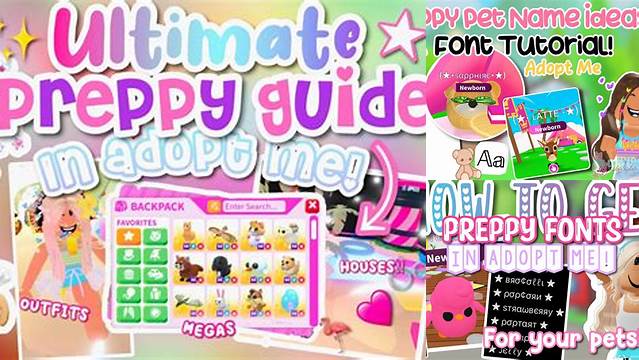
Preppy Roblox Adopt Me Fonts: The Ultimate Guide
Hey guys! Ever wondered how to make your Roblox Adopt Me creations pop with that super cute, preppy vibe? Well, a huge part of that is choosing the right fonts! Fonts can totally transform the look and feel of your signs, descriptions, and even your in-game messages. Let's dive into the world of preppy Roblox Adopt Me fonts and discover how to make your game stand out!
1. Understanding the Preppy Aesthetic
Before we jump into the fonts themselves, let's quickly break down what we mean by "preppy." Think classic, clean, and polished. Preppy style often incorporates bright colors, neat typography, and a sense of playful sophistication. When applied to Roblox Adopt Me, this aesthetic can create a welcoming and visually appealing environment that attracts players who love a bit of charm and elegance. To truly capture the preppy aesthetic, consider fonts that are easy to read, have a friendly vibe, and aren't overly complicated. Imagine fonts you might see in a high-end boutique or a charming little café. These are the types of fonts that will help you nail that preppy look in your Adopt Me world.
The preppy aesthetic is all about timeless style and understated elegance. It draws inspiration from classic Americana, Ivy League fashion, and a touch of nautical flair. In terms of visual elements, preppy designs often feature clean lines, bright colors, and a sense of order. When translating this aesthetic to Roblox Adopt Me, it's essential to maintain a balance between sophistication and playfulness. Overly complex or cluttered designs can detract from the overall experience, while overly simplistic designs may lack the visual interest needed to capture attention. Instead, opt for fonts that are easy to read, have a friendly vibe, and aren't overly complicated. Imagine fonts you might see in a high-end boutique or a charming little café. These are the types of fonts that will help you nail that preppy look in your Adopt Me world. Consider incorporating elements like stripes, polka dots, and pastel colors to complement your chosen fonts and further enhance the preppy aesthetic. Remember, the goal is to create a visually appealing and welcoming environment that reflects the timeless elegance of preppy style.
2. Top Preppy Font Choices for Roblox
Okay, let's get to the good stuff! Here are some of the best font choices to give your Roblox Adopt Me game that perfect preppy look:
- Poppins: A clean, modern sans-serif that's super versatile.
- Raleway: Elegant and stylish, perfect for headings.
- Montserrat: Another great sans-serif that's both readable and chic.
- Quicksand: A rounded, friendly font that adds a touch of playfulness.
- Nunito: Soft and approachable, ideal for longer text.
Each of these fonts has its own unique charm, but they all share a common thread: they're clean, readable, and evoke a sense of classic style. Experiment with different combinations to see what works best for your specific needs. For example, you could use Raleway for headings and Nunito for body text to create a visually appealing contrast. Don't be afraid to get creative and try out different pairings until you find the perfect combination that captures the essence of your preppy aesthetic. Remember, the goal is to create a cohesive and visually appealing design that enhances the overall experience for your players.
4. Using Text Objects Effectively
When you're working with text objects in Roblox, there are a few key things to keep in mind. First, make sure your text is easy to read. Choose a font size that's appropriate for the size of your screen and the distance at which players will be viewing it. Use contrasting colors to make your text stand out from the background. And avoid using too much text in one place – keep it concise and to the point. In addition to readability, consider the overall visual appeal of your text objects. Experiment with different font styles, sizes, and colors to create a look that complements your preppy aesthetic. You can also add shadows or outlines to your text to make it pop even more. Remember, the goal is to create text objects that are both informative and visually appealing, enhancing the overall experience for your players.
5. Image Labels for Font Display
Image labels are your best friend when it comes to displaying custom fonts in Roblox. These allow you to upload images of your font characters and display them as text. The trick is to create a complete character set for your chosen font, including uppercase and lowercase letters, numbers, and punctuation. Once you have your character set, you can use image labels to piece together words and sentences in your game. This gives you complete control over the appearance of your text, allowing you to create a truly unique and preppy look. While it may take some time and effort to create your character set, the results are well worth it. With image labels, you can transform the look and feel of your Roblox Adopt Me game and create a truly immersive and visually appealing experience for your players.
6. Color Palettes that Complement Preppy Fonts
Color is just as important as font choice when creating a preppy aesthetic. Think pastel pinks, baby blues, mint greens, and crisp whites. These colors evoke a sense of freshness and sophistication. When choosing colors for your Roblox Adopt Me game, consider how they will complement your chosen fonts. For example, a light pink background might look great with a white Raleway font. Or a baby blue background might pair well with a black Montserrat font. Experiment with different color combinations until you find the perfect palette that captures the essence of your preppy style. Remember, the goal is to create a cohesive and visually appealing design that enhances the overall experience for your players.
7. Kerning and Spacing for Readability
Kerning, the space between individual letters, and spacing, the overall space between words, are crucial for readability. If your kerning is too tight, your letters will look cramped and difficult to read. If it's too loose, your words will look disjointed. Similarly, if your spacing is too wide, your sentences will feel disconnected. When working with custom fonts in Roblox, pay close attention to kerning and spacing to ensure that your text is easy to read and visually appealing. You may need to manually adjust the spacing between letters and words to achieve the desired effect. There are also tools and techniques available online that can help you optimize kerning and spacing for your specific font and application. By taking the time to fine-tune these details, you can significantly improve the readability and overall quality of your text.
8. Font Sizes and Scaling in Roblox
Choosing the right font sizes is critical for readability and visual appeal. Too small, and your text will be difficult to read. Too large, and it will overwhelm the screen. When determining font sizes for your Roblox Adopt Me game, consider the size of the screen, the distance at which players will be viewing the text, and the overall design of your game. You may need to experiment with different font sizes to find the perfect balance. In addition to font size, consider how your text will scale on different devices. Roblox games are often played on a variety of devices, from large desktop monitors to small mobile phones. Make sure your text is legible and visually appealing on all of these devices. There are also tools and techniques available in Roblox that can help you automatically scale your text based on screen size. By taking the time to optimize font sizes and scaling, you can ensure that your text is always easy to read and looks great, regardless of the device being used.
9. Combining Fonts for Visual Hierarchy
Creating a visual hierarchy is essential for guiding the reader's eye and conveying information effectively. One way to achieve this is by combining different fonts. For example, you could use a bold, attention-grabbing font for headings and a more readable font for body text. This creates a clear distinction between different levels of information and helps the reader quickly understand the structure of your content. When combining fonts, it's important to choose fonts that complement each other and create a cohesive look. Avoid using too many different fonts, as this can make your design look cluttered and confusing. Instead, stick to two or three fonts that work well together and use them consistently throughout your game. By carefully combining fonts, you can create a visual hierarchy that enhances readability and makes your content more engaging.
10. Creating Custom Text Effects
Custom text effects can add a touch of flair and personality to your Roblox Adopt Me game. There are many different text effects you can create, such as shadows, outlines, gradients, and glows. These effects can be used to make your text stand out, create depth, and add visual interest. When creating custom text effects, it's important to use them sparingly and avoid overdoing it. Too many effects can make your text look cluttered and difficult to read. Instead, focus on using a few well-chosen effects to enhance the overall design of your game. There are many tutorials and resources available online that can teach you how to create custom text effects in Roblox. By experimenting with different effects and techniques, you can create a unique and visually appealing look for your game.
11. Accessibility Considerations for Fonts
Accessibility is an important consideration when choosing fonts for your Roblox Adopt Me game. Make sure your fonts are easy to read for players with visual impairments. Avoid using overly decorative or stylized fonts, as these can be difficult to decipher. Choose fonts with clear, distinct letterforms and adequate spacing. In addition to font choice, consider the color contrast between your text and background. Use high contrast colors to make your text stand out and be easily visible. There are also tools and guidelines available online that can help you assess the accessibility of your fonts and color choices. By considering accessibility, you can ensure that your game is enjoyable for all players, regardless of their visual abilities.
12. The Psychology of Font Choices
Did you know that font choices can actually influence how people perceive your game? Different fonts evoke different emotions and associations. For example, a playful, rounded font might suggest a fun and lighthearted game, while a bold, angular font might suggest a serious and competitive game. When choosing fonts for your Roblox Adopt Me game, consider the overall tone and message you want to convey. Choose fonts that align with your game's theme and target audience. There are many resources available online that explore the psychology of font choices. By understanding how fonts affect people's perceptions, you can make informed decisions that enhance the overall experience of your game.
13. Avoiding Common Font Mistakes
There are a few common font mistakes that can detract from the quality of your Roblox Adopt Me game. One common mistake is using too many different fonts. This can make your design look cluttered and confusing. Stick to two or three fonts that work well together and use them consistently throughout your game. Another common mistake is choosing fonts that are difficult to read. Avoid using overly decorative or stylized fonts, as these can be difficult to decipher. Choose fonts with clear, distinct letterforms and adequate spacing. Additionally, be mindful of color contrast between your text and background. Use high contrast colors to make your text stand out and be easily visible. By avoiding these common font mistakes, you can ensure that your text is easy to read and visually appealing.
14. Optimizing Fonts for Different Devices
As mentioned earlier, optimizing fonts for different devices is crucial for ensuring a consistent and enjoyable experience for all players. Roblox games are often played on a variety of devices, from large desktop monitors to small mobile phones. Make sure your text is legible and visually appealing on all of these devices. There are tools and techniques available in Roblox that can help you automatically scale your text based on screen size. Additionally, consider using responsive design principles to adjust the layout and font sizes of your text based on the screen size. By taking the time to optimize fonts for different devices, you can ensure that your game looks great and is easy to play on any device.
15. Free vs. Paid Font Options
When choosing fonts for your Roblox Adopt Me game, you'll have the option of using free or paid fonts. Free fonts can be a great option if you're on a tight budget, but they may not offer the same level of quality or variety as paid fonts. Paid fonts often come with more features, such as multiple weights and styles, and may be better suited for professional use. When choosing between free and paid fonts, consider your budget, your design needs, and the overall quality of the fonts. There are many reputable websites that offer both free and paid fonts, so take the time to research your options and choose the fonts that are right for you.
16. Legal Considerations When Using Fonts
It's important to be aware of the legal considerations when using fonts in your Roblox Adopt Me game. Fonts are often protected by copyright, and you may need to obtain a license to use them commercially. Before using a font, check its license agreement to ensure that you are allowed to use it for your intended purpose. If you're unsure about the licensing terms of a font, it's best to err on the side of caution and choose a different font. There are many reputable websites that offer fonts with clear and straightforward licensing terms, so take the time to research your options and choose fonts that you are legally allowed to use.
17. Creating a Font Style Guide for Your Game
Developing a font style guide helps you to maintain consistency throughout your game. This guide should outline which fonts to use for headings, body text, and other elements of your game. It should also specify font sizes, colors, and other formatting options. By creating a font style guide, you can ensure that your text is always consistent and visually appealing. This can help to create a more professional and polished look for your game. A well-developed font style guide also makes it easier for other developers to contribute to your game, as they will have clear guidelines to follow.
18. Testing Fonts with Different Backgrounds
Testing fonts with different backgrounds is essential for ensuring readability. Choose a variety of backgrounds, including light, dark, and patterned backgrounds, and see how your fonts look on each one. Make sure your text is legible and easy to read on all of these backgrounds. If necessary, adjust the color contrast or add a shadow or outline to your text to improve readability. By testing fonts with different backgrounds, you can ensure that your text is always visible and easy to read, regardless of the background being used.
19. Gathering Feedback on Your Font Choices
Gathering feedback on your font choices can help you to make informed decisions and improve the overall design of your game. Ask other developers, friends, or players for their opinions on your font choices. Do they find the fonts easy to read? Do they think the fonts are visually appealing? Do they have any suggestions for improvement? By gathering feedback, you can identify potential problems with your font choices and make adjustments as needed. This can help you to create a more enjoyable and visually appealing game for your players.
20. Animating Text with Preppy Fonts
Adding animation to your text can bring it to life and make it more engaging. You can use animation to draw attention to important information, create a sense of excitement, or simply add a touch of personality to your game. When animating text with preppy fonts, it's important to use subtle and tasteful animations. Avoid using overly flashy or distracting animations, as these can detract from the overall design of your game. Instead, focus on using subtle animations that enhance the readability and visual appeal of your text.
21. Scripting Custom Font Display
For advanced users, scripting custom font display can offer more control and flexibility over how your fonts are rendered in Roblox. By using scripts, you can dynamically change the font, size, color, and other properties of your text. You can also create custom text effects and animations that are not possible with the built-in Roblox tools. Scripting custom font display requires a good understanding of Roblox scripting, but it can be a powerful tool for creating unique and visually appealing text in your game.
22. Creating Icons with Font Characters
Did you know that you can create icons using font characters? Many fonts include special characters that can be used as icons. These icons can be used to represent different actions, objects, or concepts in your game. By using font characters as icons, you can save on image resources and create a more consistent and visually appealing design. When creating icons with font characters, it's important to choose characters that are easily recognizable and relevant to your game. You should also make sure that the icons are properly sized and scaled for different devices.
23. Font Licensing for Commercial Use
When using fonts for commercial purposes, it's essential to understand the licensing terms. Most fonts are protected by copyright, and you may need to obtain a license to use them in your game. The licensing terms will vary depending on the font and the font foundry. Some fonts are free for commercial use, while others require you to purchase a license. Before using a font in your Roblox Adopt Me game, check its license agreement to ensure that you are allowed to use it for your intended purpose. If you're unsure about the licensing terms of a font, it's best to err on the side of caution and choose a different font.
24. Maintaining a Consistent Font Style
Consistency is key to creating a professional and polished look for your Roblox Adopt Me game. Maintain a consistent font style throughout your game, using the same fonts, sizes, colors, and formatting options. This will help to create a cohesive and visually appealing design. To maintain a consistent font style, create a font style guide and follow it closely. The guide should outline which fonts to use for headings, body text, and other elements of your game. It should also specify font sizes, colors, and other formatting options.
25. Font Pairing Strategies for Preppy Themes
Font pairing is the art of combining different fonts to create a visually appealing and harmonious design. When pairing fonts for preppy themes, it's important to choose fonts that complement each other and create a cohesive look. A good strategy is to pair a serif font with a sans-serif font. For example, you could pair Raleway (a sans-serif font) with Playfair Display (a serif font). Another strategy is to pair a bold font with a lighter font. For example, you could pair Montserrat (a bold font) with Lato (a lighter font). By using font pairing strategies, you can create a more visually interesting and appealing design for your Roblox Adopt Me game.
26. Integrating Custom Fonts into GUIs
Custom fonts can significantly enhance the look and feel of your game's graphical user interfaces (GUIs). Integrating custom fonts into GUIs involves using image labels or scripting to display text with your chosen preppy fonts. Ensure that the font size and style align with the overall aesthetic of your GUI elements, creating a cohesive and visually appealing user experience. Test your GUI across different devices to ensure that the custom fonts render correctly and are legible.
27. Utilizing Font Awesome Icons
Font Awesome provides a vast library of scalable vector icons that can be used in your Roblox Adopt Me game. These icons are perfect for adding visual cues and enhancing the user interface. Integrate Font Awesome icons alongside your preppy fonts to create a modern and polished look. Ensure that the icons are properly sized and aligned with the text, maintaining a consistent and visually harmonious design.
28. Best Practices for Font Readability
Font readability is crucial for ensuring that your game's text is easily legible and understandable. Choose fonts with clear, distinct letterforms and adequate spacing. Use appropriate font sizes and color contrast to enhance readability. Avoid using overly decorative or stylized fonts, as these can be difficult to decipher. Test your fonts on different devices and screen resolutions to ensure that they remain readable. By following these best practices, you can create a game that is accessible and enjoyable for all players.
29. Creating a Unique Brand Identity with Fonts
Your choice of fonts can play a significant role in creating a unique brand identity for your Roblox Adopt Me game. Select fonts that reflect the personality and style of your game. Use these fonts consistently throughout your game's user interface, marketing materials, and social media presence. Over time, players will begin to associate these fonts with your game, helping to establish a strong and recognizable brand identity.
30. The Future of Fonts in Roblox
As Roblox continues to evolve, the future of fonts in the platform is likely to bring more flexibility and customization options. Future updates may include direct support for custom fonts, making it easier for developers to integrate their favorite fonts into their games. Enhanced font rendering and scaling capabilities could also improve the visual quality of text across different devices. Keep an eye on future Roblox updates to see how the platform is evolving and how you can leverage new font features to enhance your games.